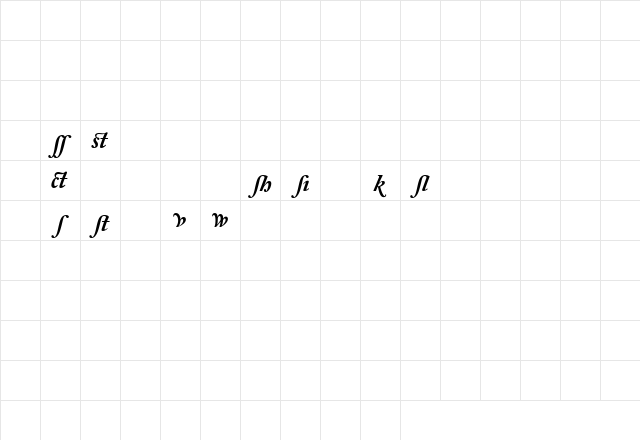
Caslon Alternate Black SSi Bold Italic Font Preview
Design Context for Caslon Alternate Black SSi Typeface
Caslon Alternate Black SSi takes a measured approach to typography — its balanced proportions and neutral character make it a reliable workhorse for both digital and print work. The slanted form adds forward momentum and visual energy. The heavy weight commands attention and anchors typographic hierarchies.